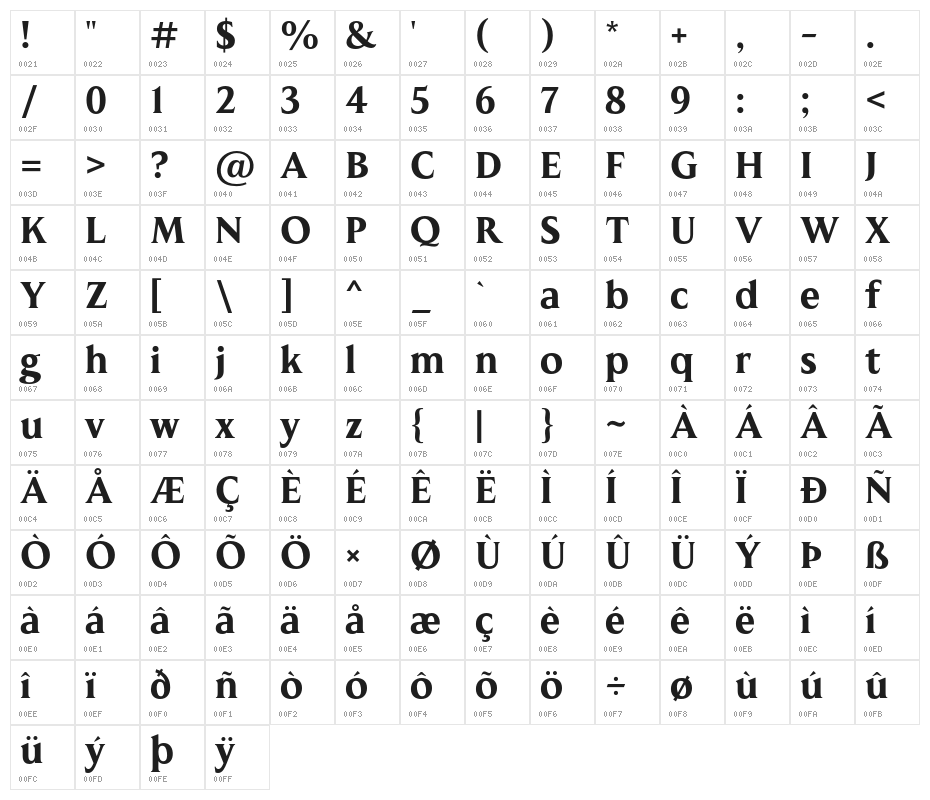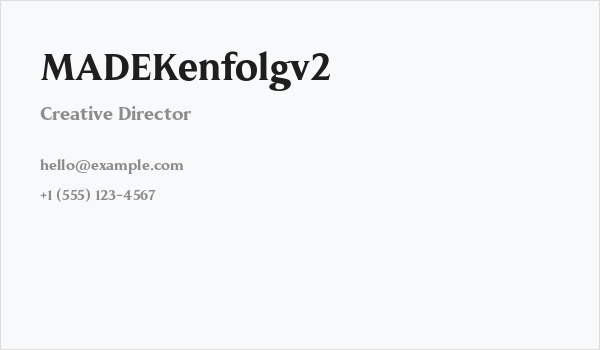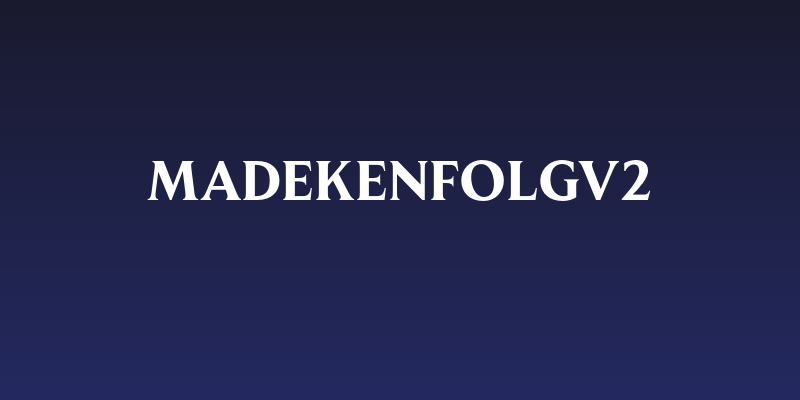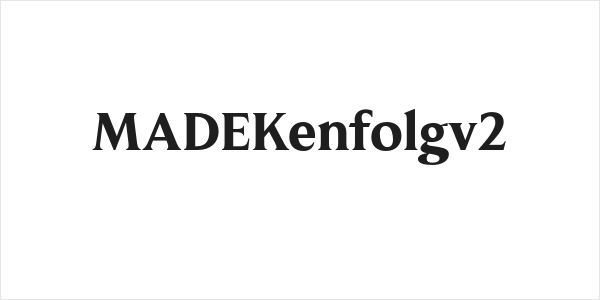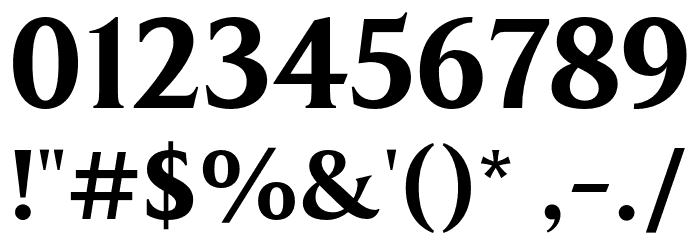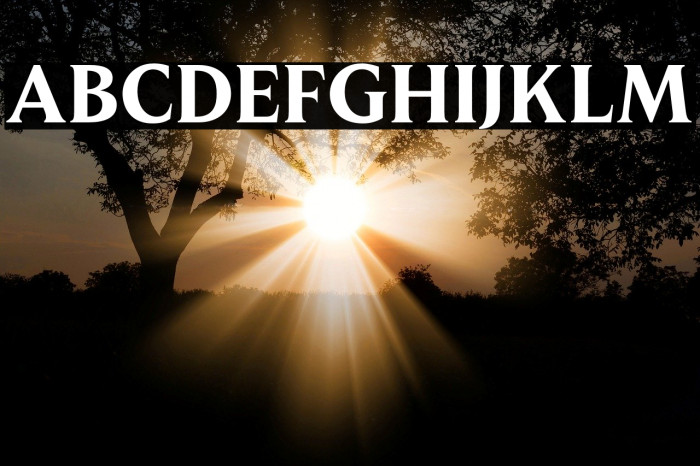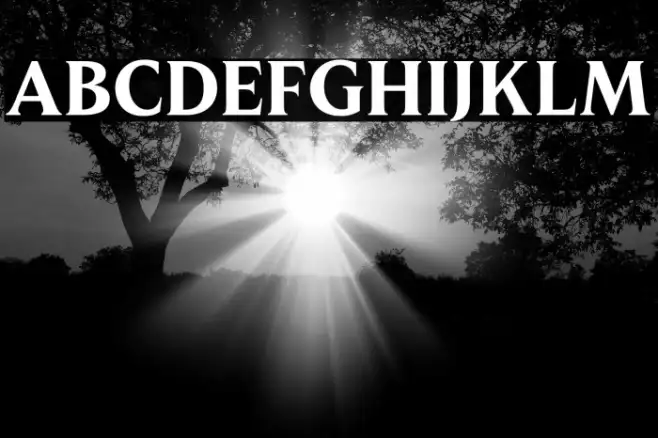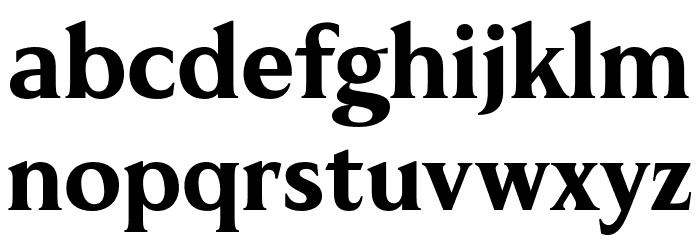
MADEKenfolgv2 Font
MADEKenfolgv2 Description
This font features a classic serif style with strong, bold strokes and high contrast between thick and thin lines. The uppercase letters are elegantly proportioned, with a traditional feel that is both authoritative and refined. The lowercase letters maintain a consistent style, offering a harmonious balance with the uppercase set. The numerals are clear and robust, ensuring readability. Special characters are well-integrated, maintaining the overall aesthetic. This font exudes a timeless elegance, suitable for a variety of formal and professional applications.